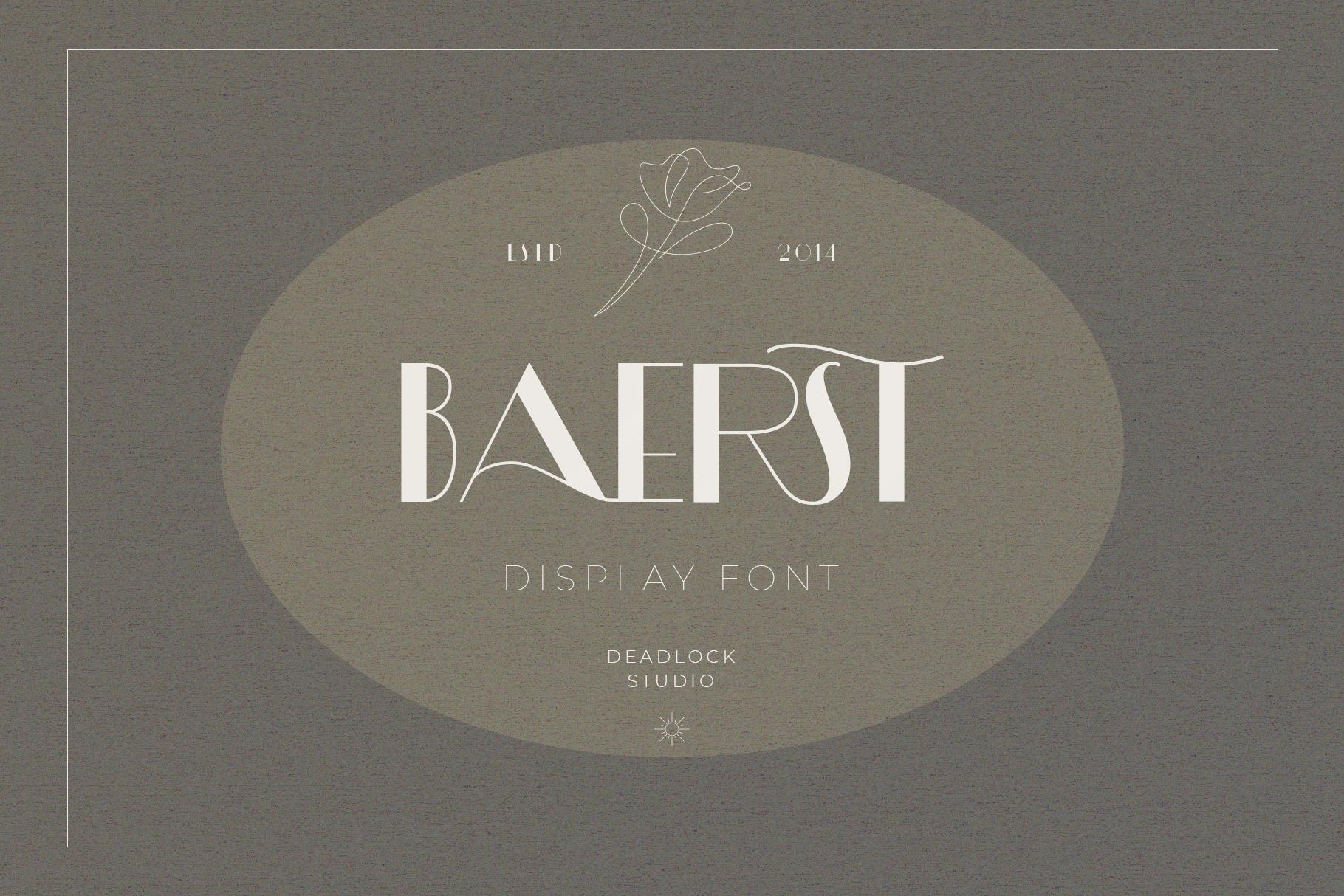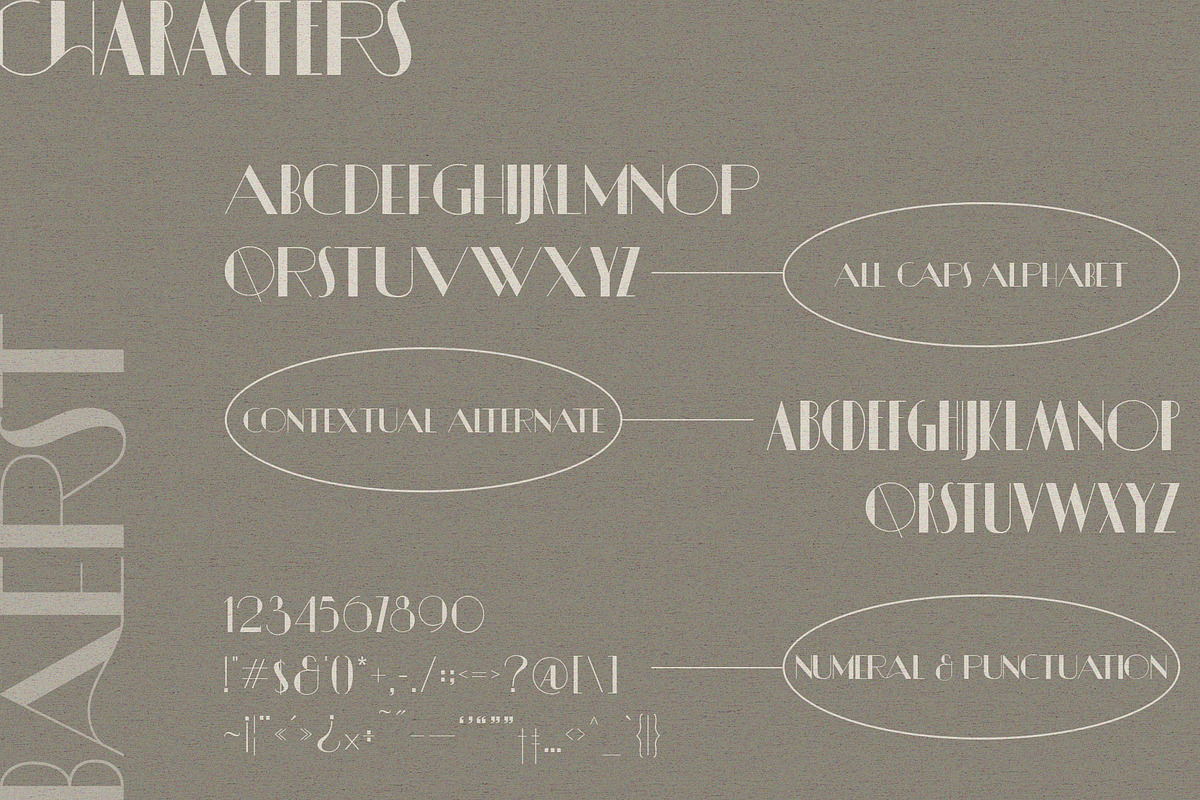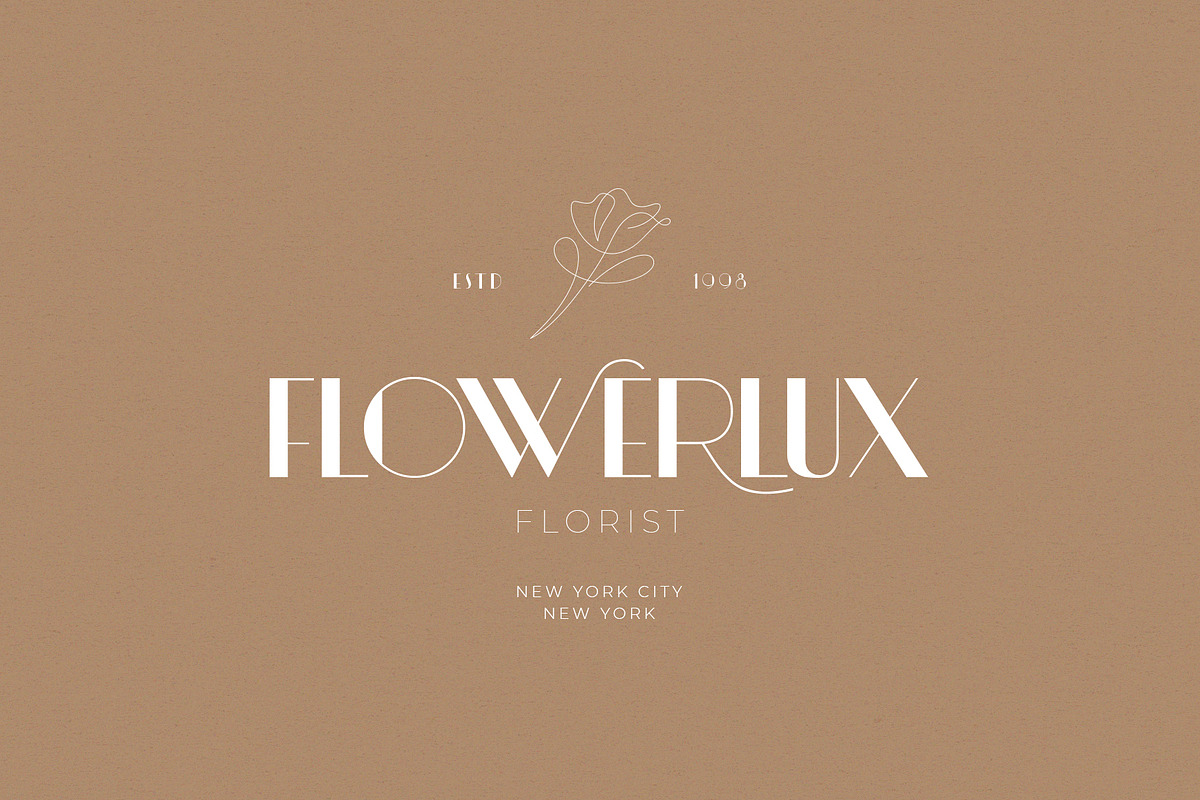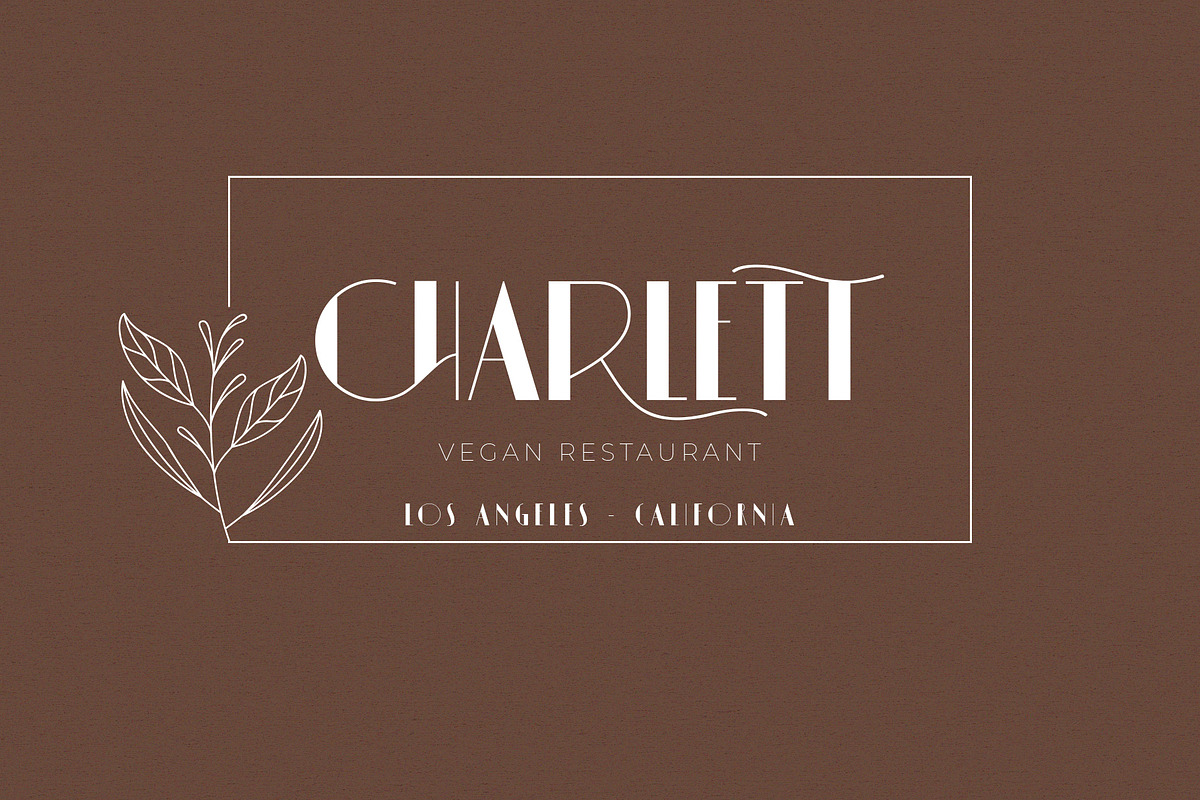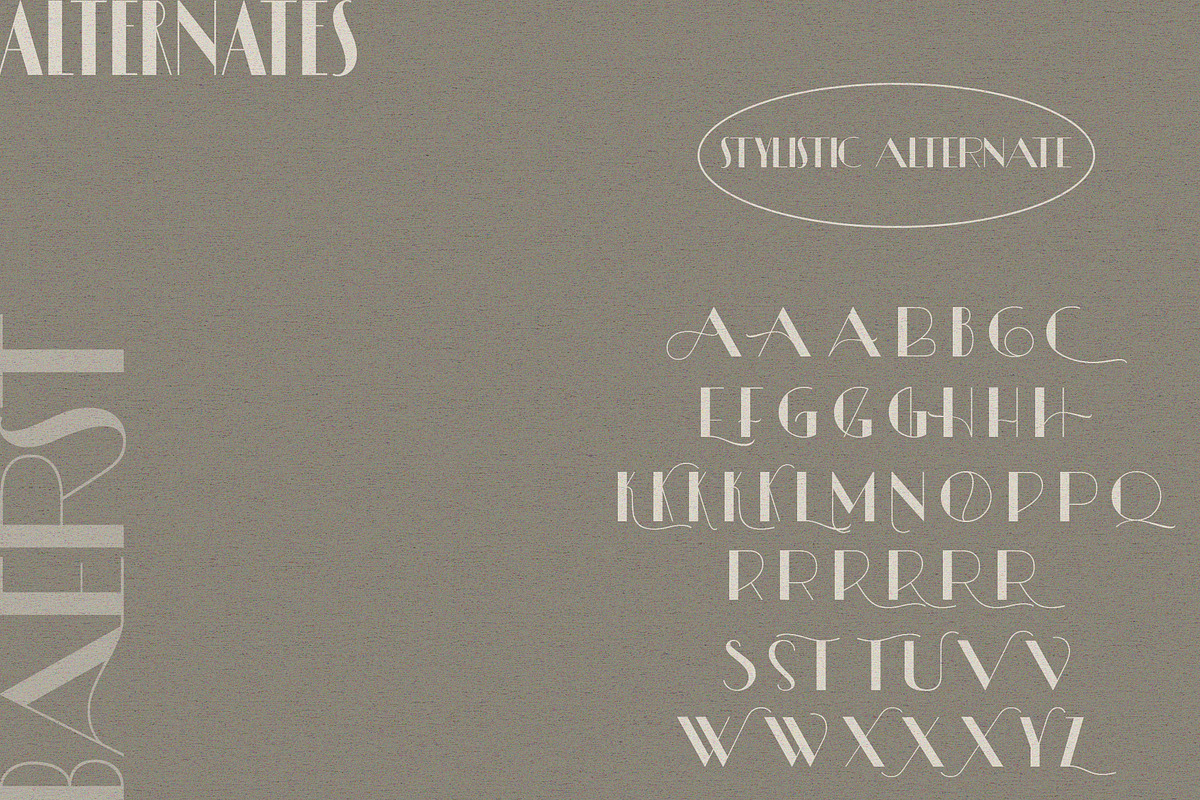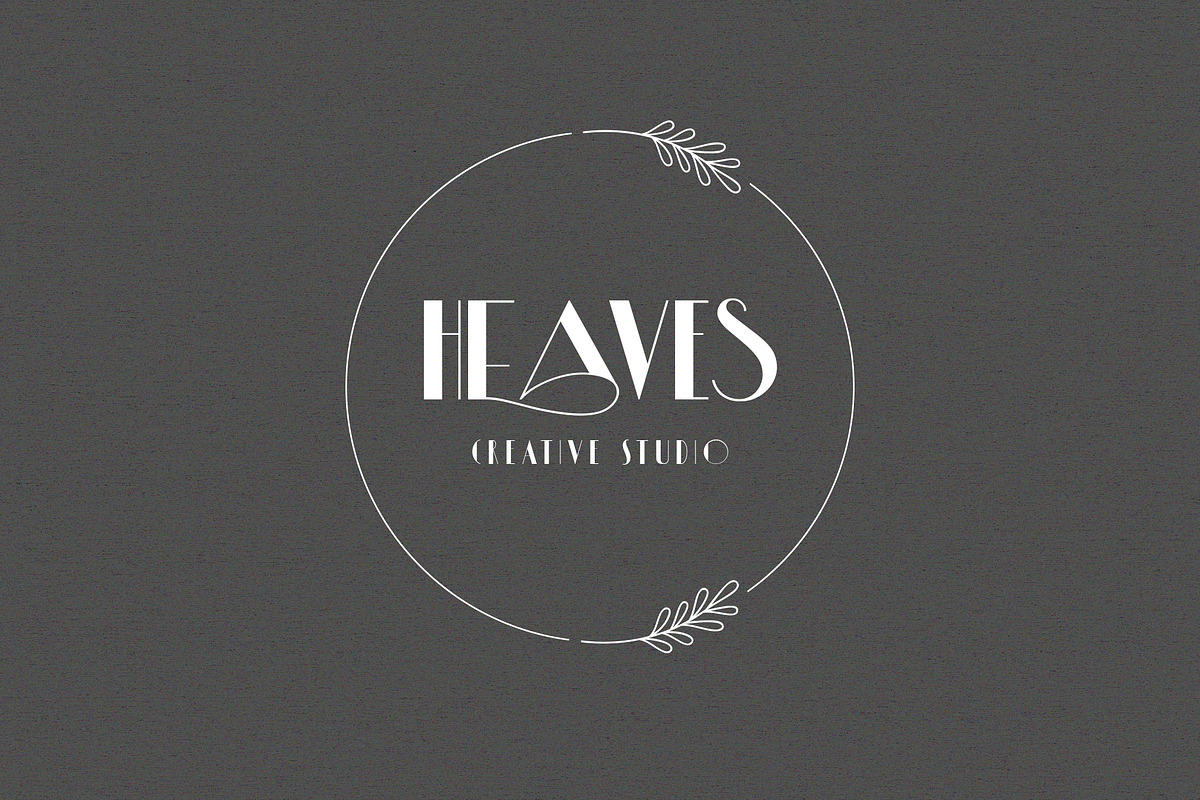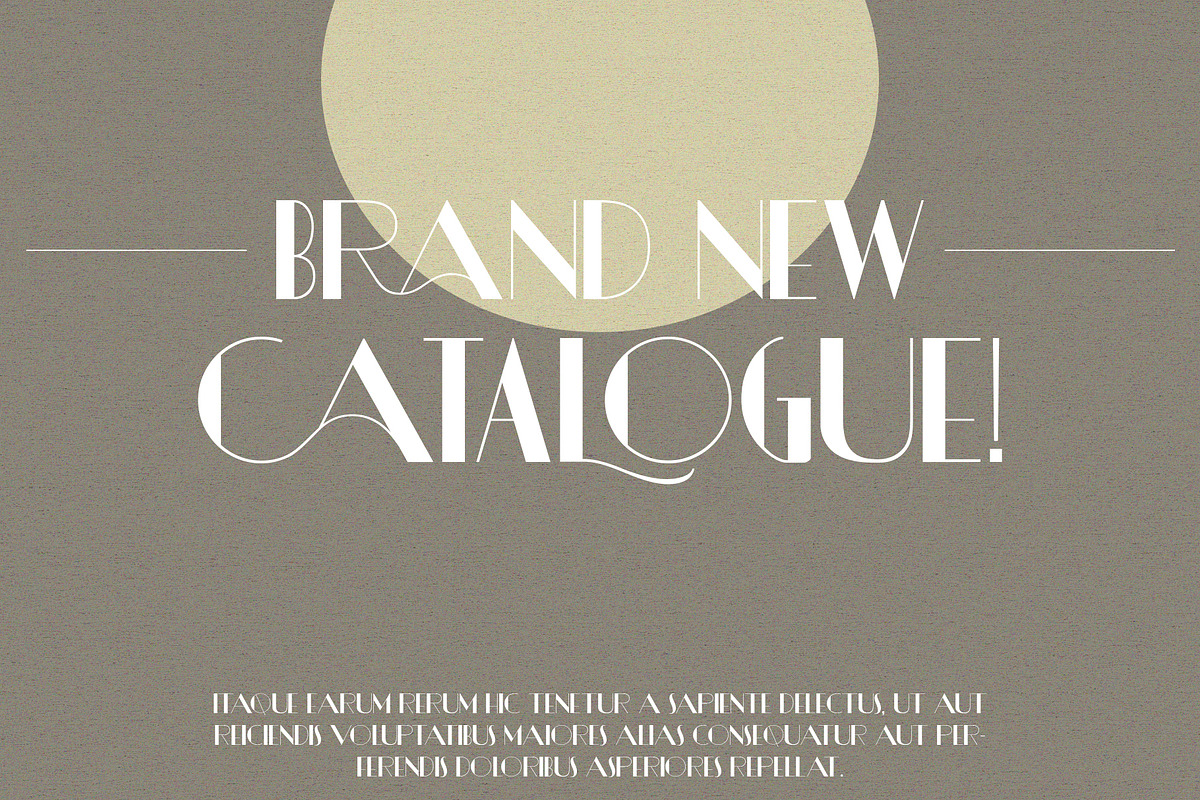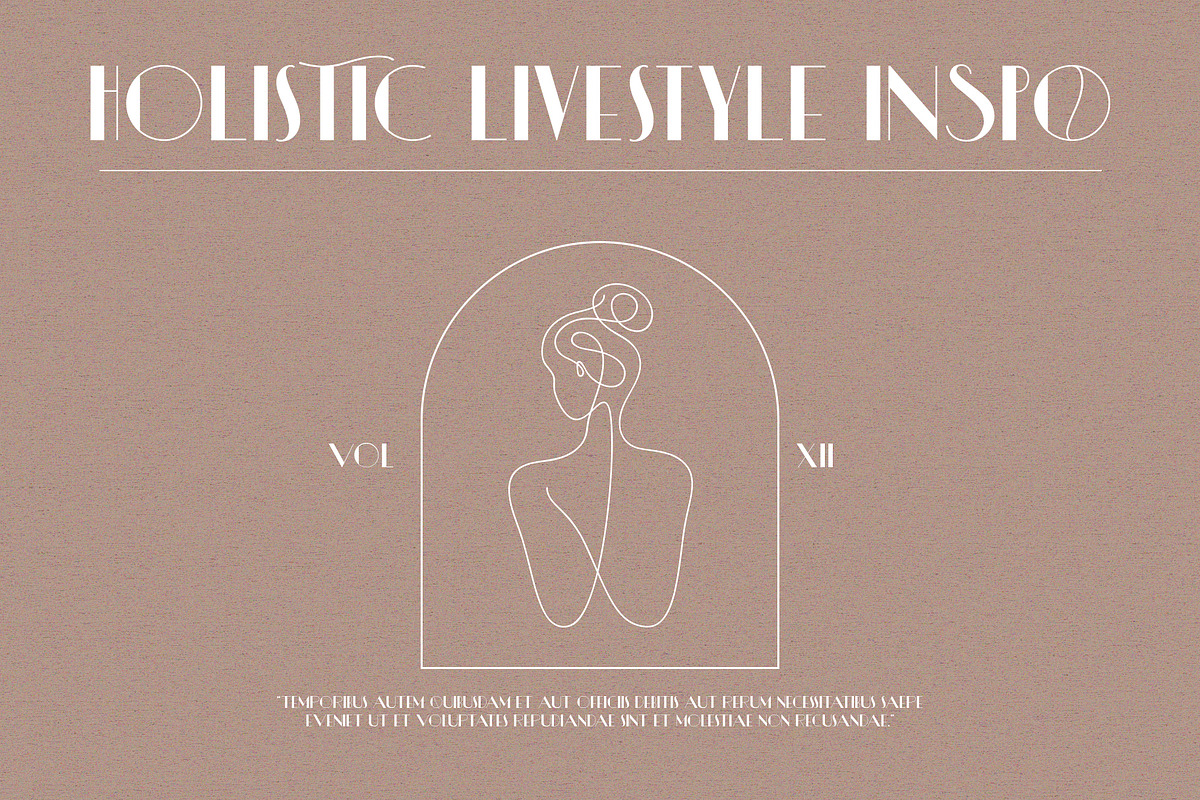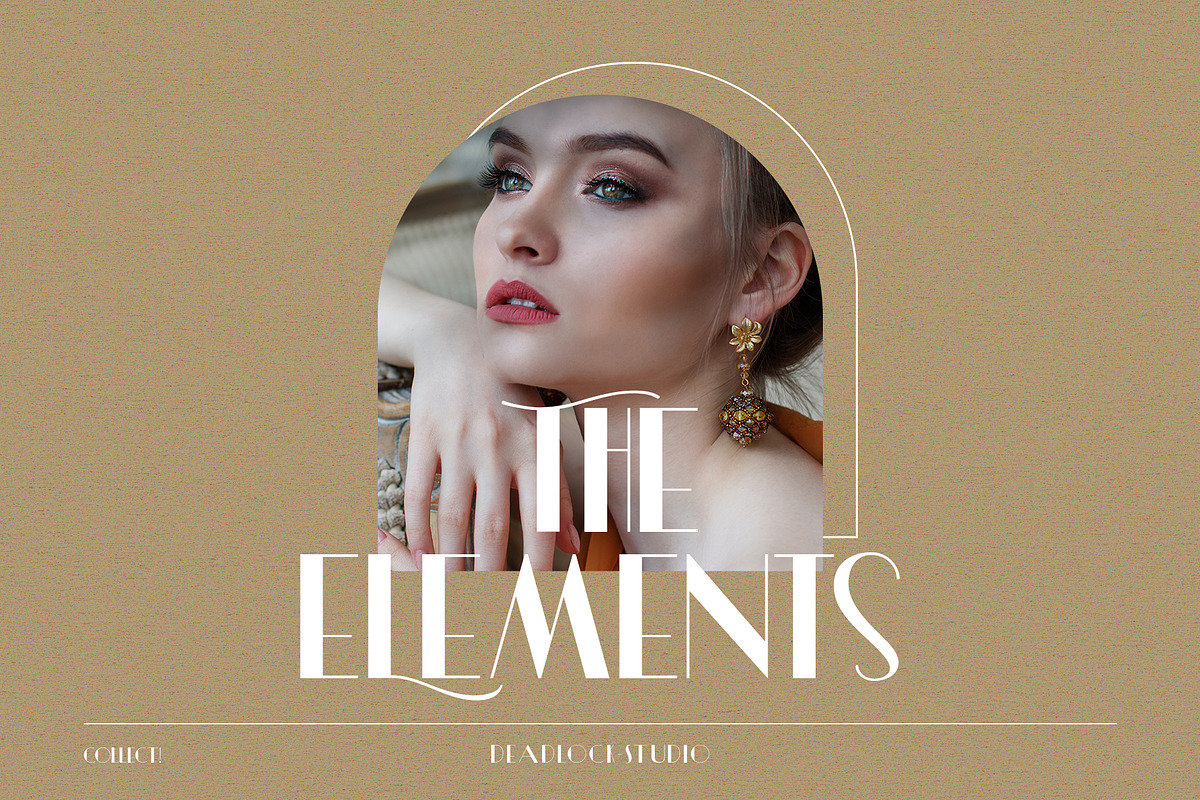
Baerst! Modern Display Font
BAERST!
Introducing Baerst! Modern sans serif display font!
Baerst is an modern display font that crafted with beautiful alternate characters and creative ligatures.
With a vision to create an elegant looks to any design project, Baerst is perfect ingredient to create any header, typographic logo, headline, or any design project you're working on.